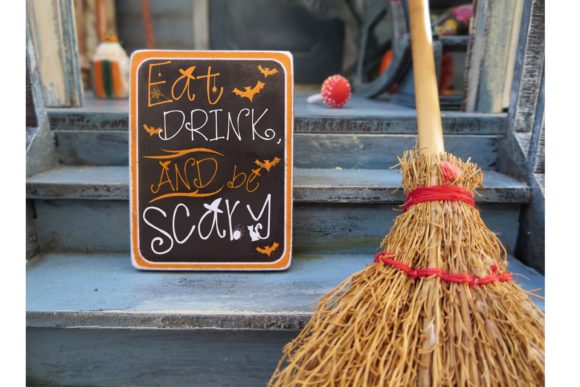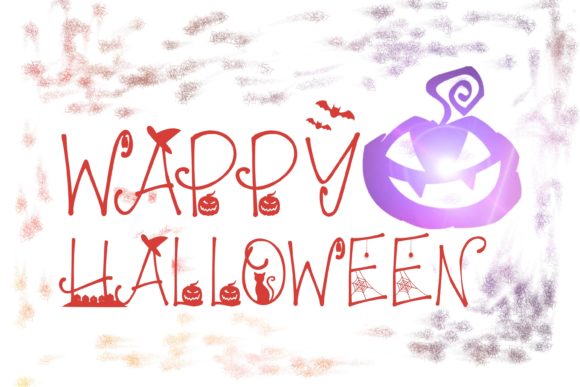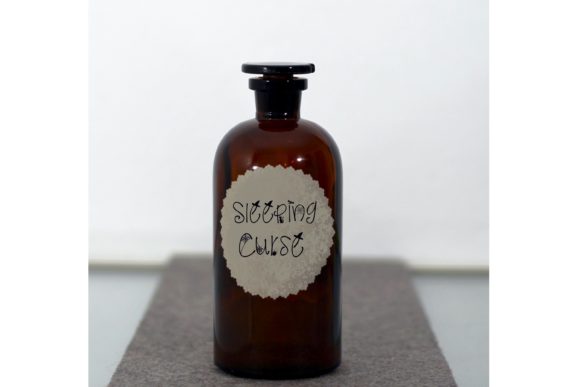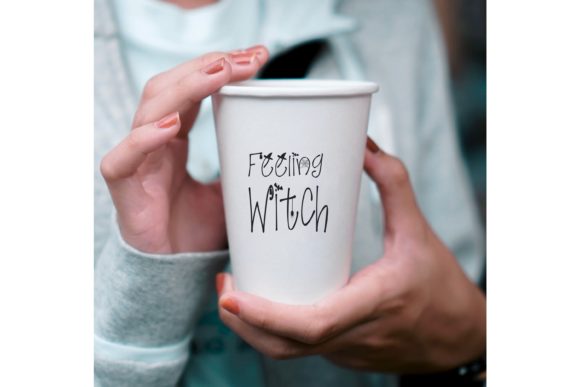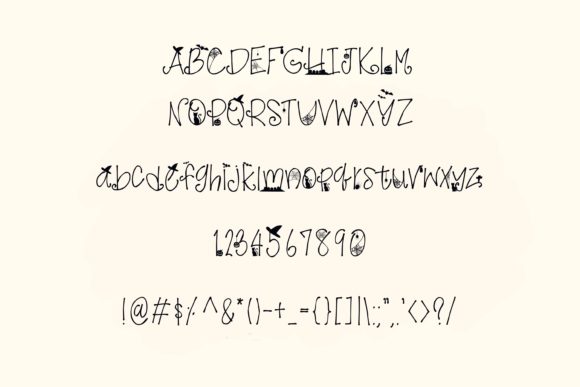
About Witch Font
Witch is a cute, quirky and gloomy handwritten font. Trendy and stylish, this font will elevate each of your creations. Fall for its charming touch and create outstanding Halloween designs with it.